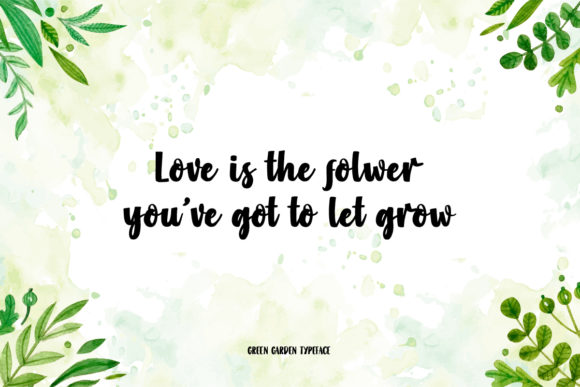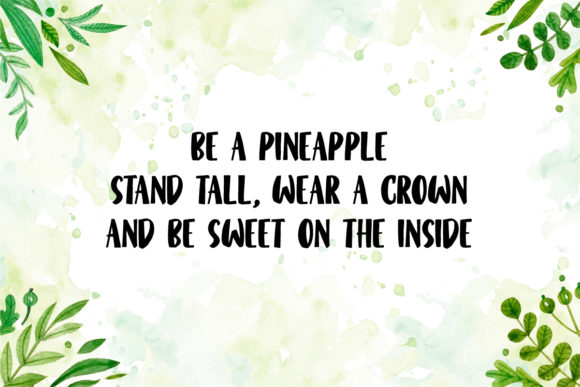
Green Garden Font
About Green Garden Font
Green Garden is a gorgeous and light script font that’s perfectly tailored for a wide range of crafting ideas. Fall in love with its modern appeal!